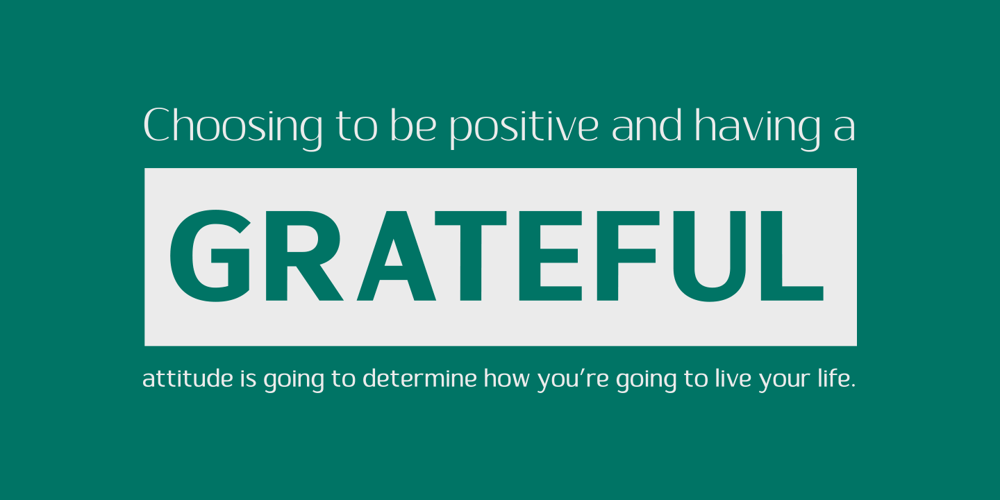
Sumptuous Font Family was designed by Arwan Sutanto and published by Locomotype. Sumptuous contains 14 styles and family package options. Sumptuous is a classic sans-serif family that combines geometric and humanist shapes. It comes in 14 weights, 10 uprights and 10 italics. Each weight includes OpenType features such as standard ligatures, directional ligatures, tabular figures, fractions and more and also extended language support. Suitable for magazines, headline, body text, logo, poster and other graphic design projects.